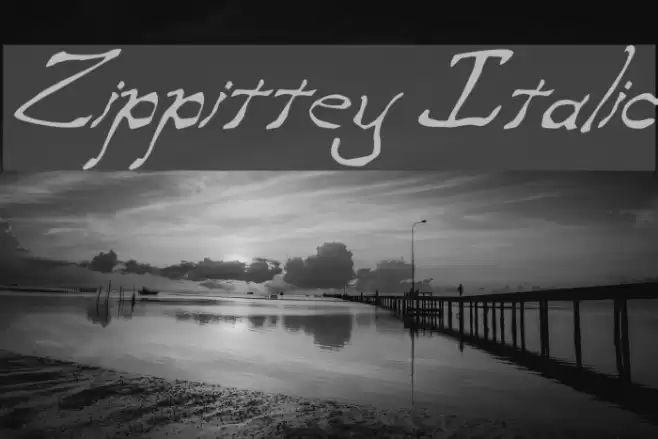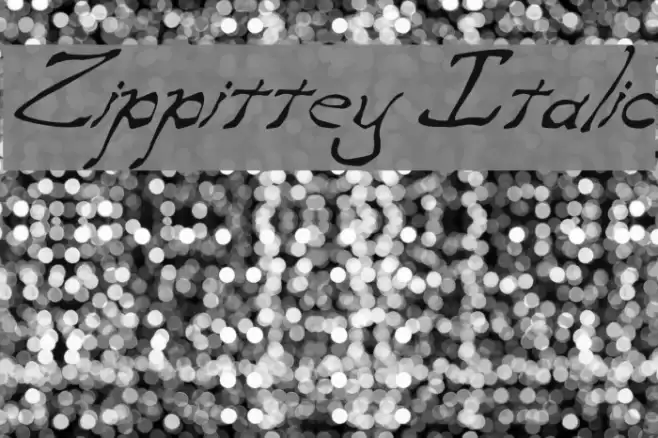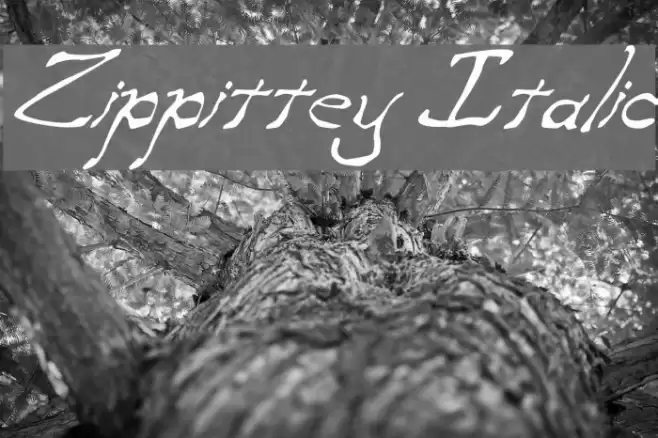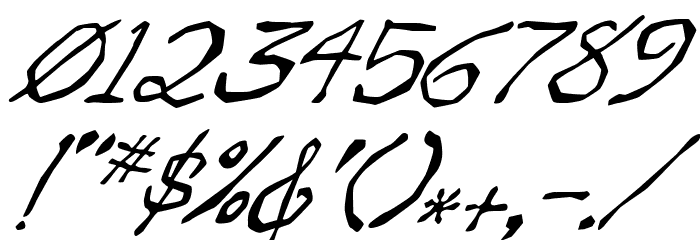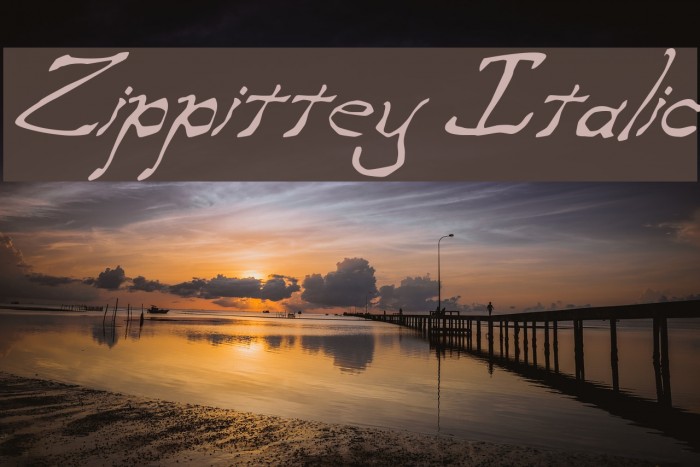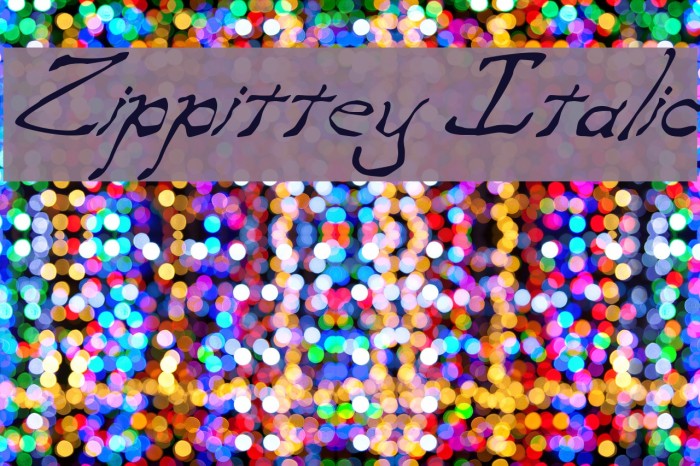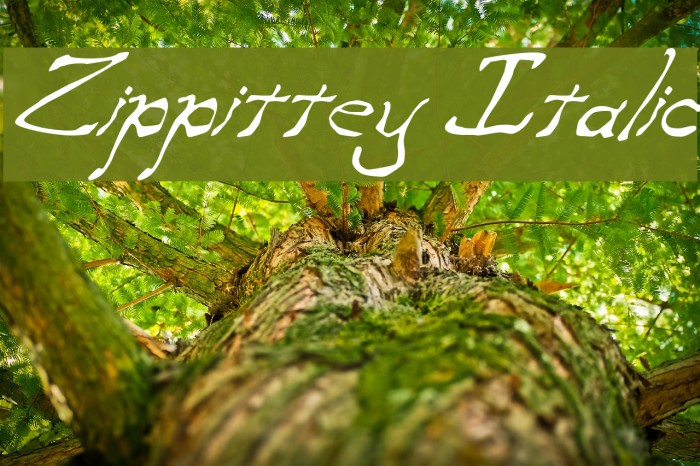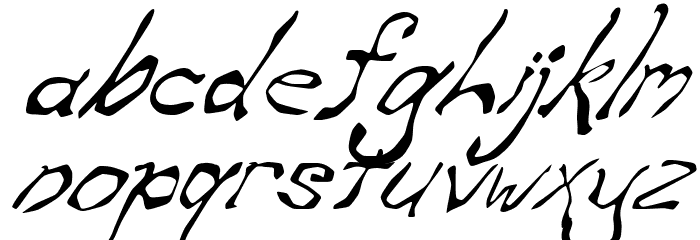
Zippittey Italic Font
Zippittey Italic Description
This font exhibits a dynamic and energetic style, characterized by its italicized, handwritten appearance. The letters have a fluid, cursive quality with varying stroke thickness that adds a sense of movement and spontaneity. The uppercase and lowercase letters maintain a consistent slant, enhancing the overall cohesive look. The numerals and special characters follow the same stylistic cues, ensuring uniformity across all glyphs. The font's unique flair makes it stand out, with its slightly irregular shapes and playful curves, giving it a personal and informal touch.
A dynamic, italicized handwritten font with fluid, cursive strokes from Uncategorized fonts.
- Proposed Projects: Ideal for creative projects such as greeting cards, invitations, personal branding, and artistic posters.
- Use Case: Logos, Headlines, Artistic projects